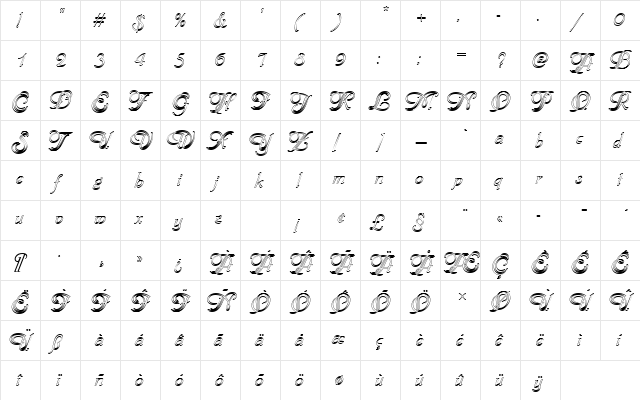
PhyllisIniDIn1 Regular Font Preview
PhyllisIniDIn1 Regular
Design Context for PhyllisIniDIn1 Typeface
PhyllisIniDIn1 is a composed and adaptable typeface that performs quietly and consistently across a wide range of design contexts.